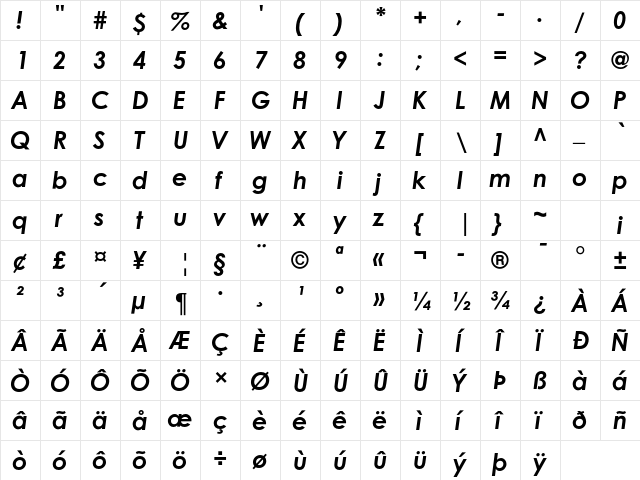
Century Gothic Std Bold Italic Font Preview
Design Context for Century Gothic Std Typeface
Century Gothic Std takes a clean, functional approach — its unadorned letterforms prioritise legibility and work reliably across screen and print environments. Its italic angle brings a sense of urgency and motion to the letterforms. Its bold stroke weight gives it real presence on the page.
A strong choice for UI design, app interfaces, bold signage, and corporate brand systems.
Font Pairing: Use Century Gothic Std for headlines alongside a lighter-weight sans or serif for body copy to establish clear visual hierarchy.
Pro Tip: Pair Century Gothic Std with a display or serif font for headlines — its neutral character makes it an excellent supporting player in complex typographic systems.